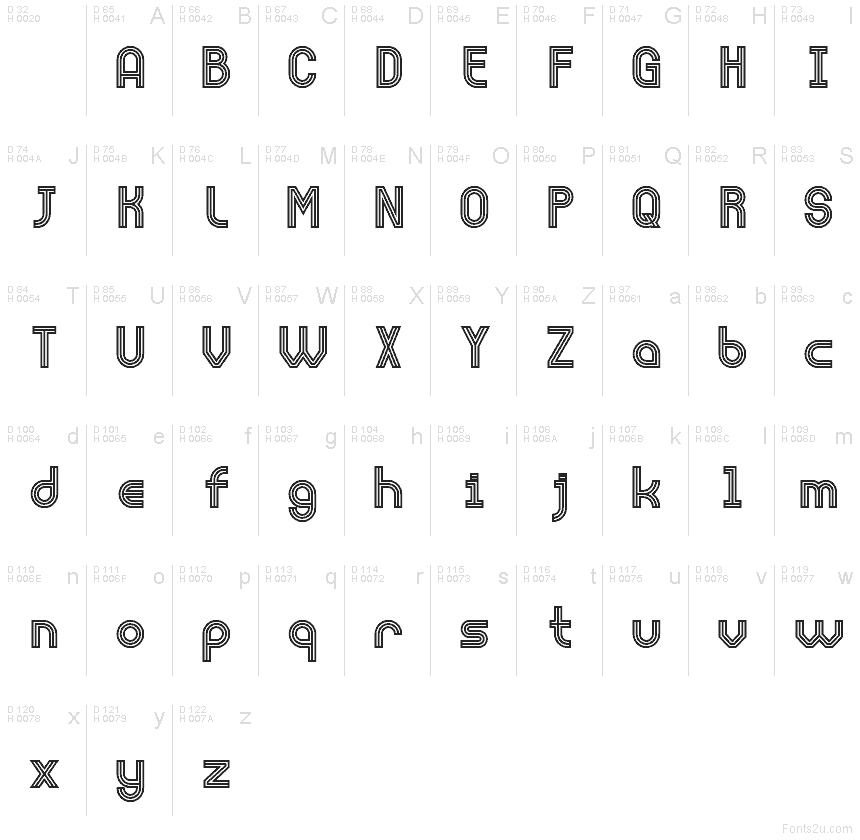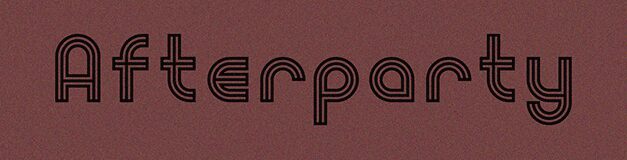
Afterparty Extravagant Regular
Afterparty Extravagant font is a decorative display typeface designed by Vladimir Nikolic. Its characteristics include a modern geometric style with layered elements and retro-inspired details that result in an overall contemporary appeal. This bold font combines clear visibility with design borders that are uniquely mobile, going from rigid and firm to slightly fluid.
Whatever message this free font delivers, it’ll always be loud and clear whether on magazine covers, label designs for CD’s or books, presentations, or packaging of products. Afterparty Extravagant can also be used for websites headers and footers as well as creative branding projects such as logos.